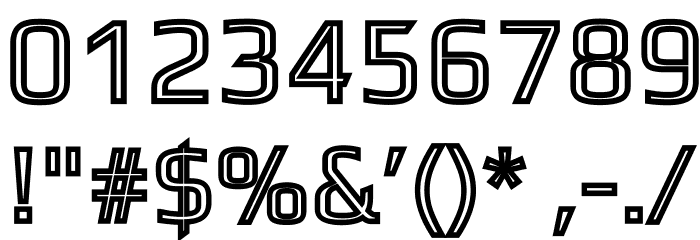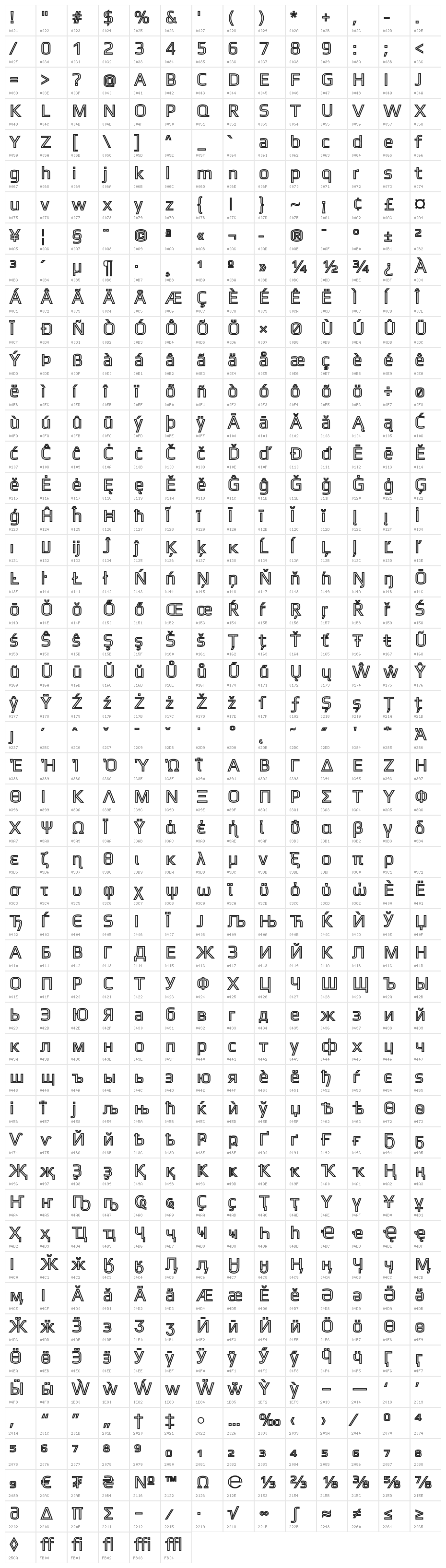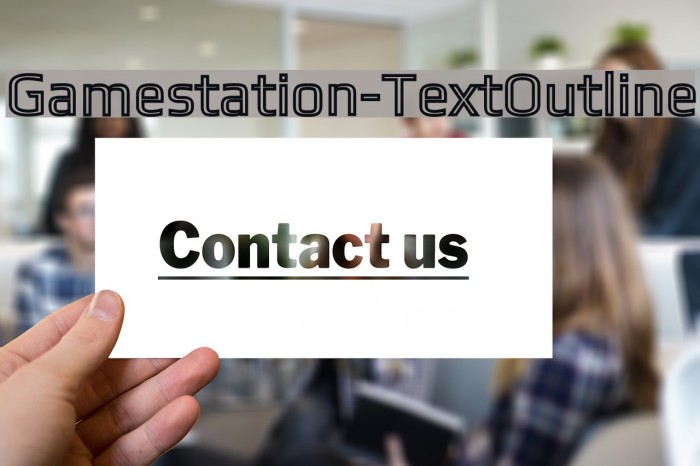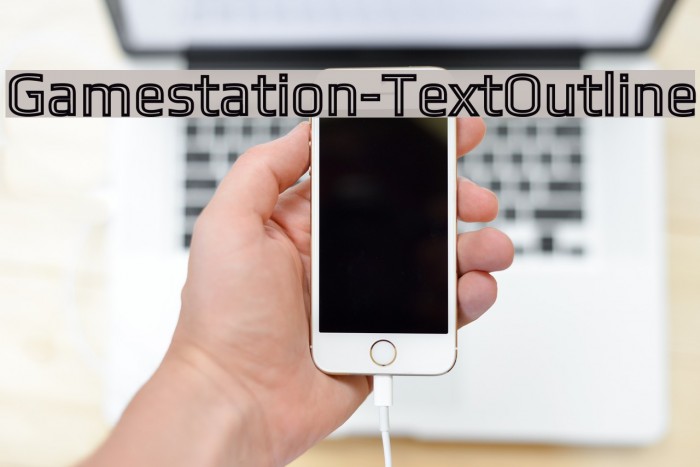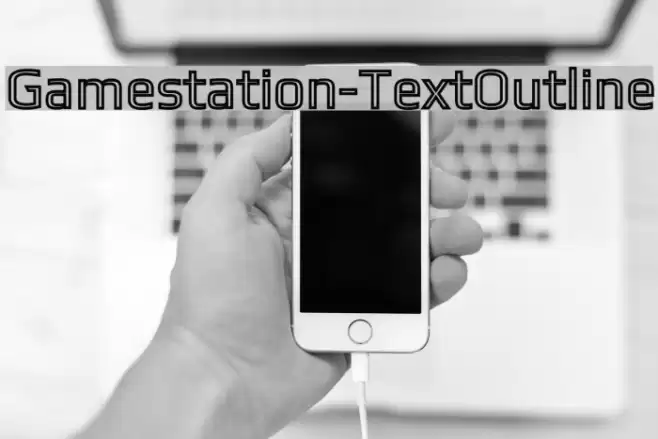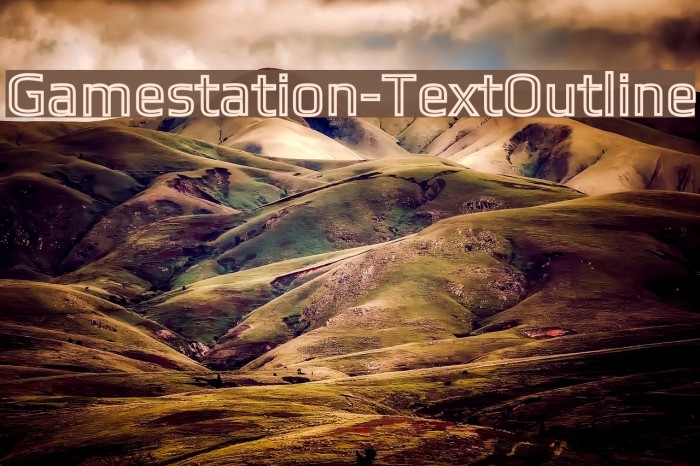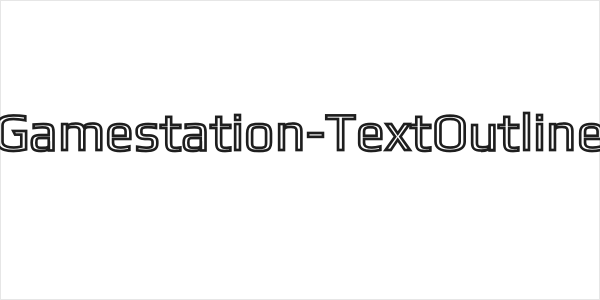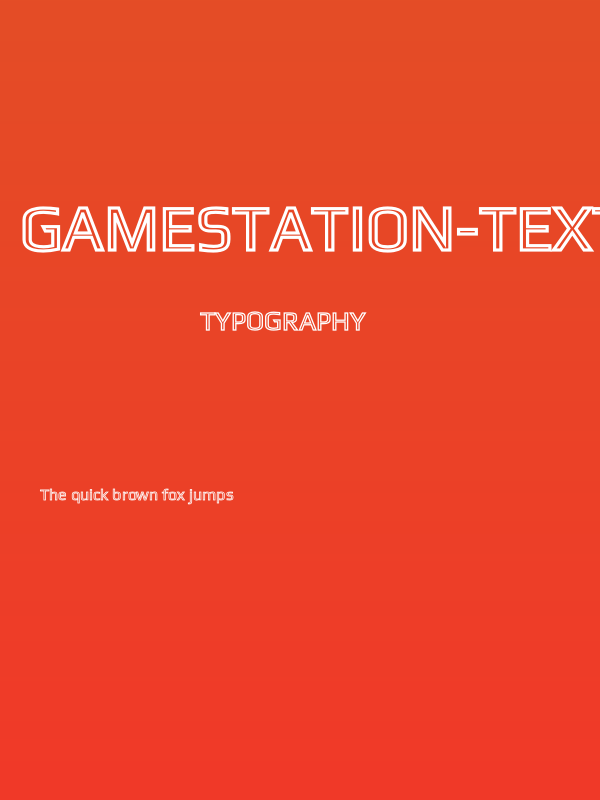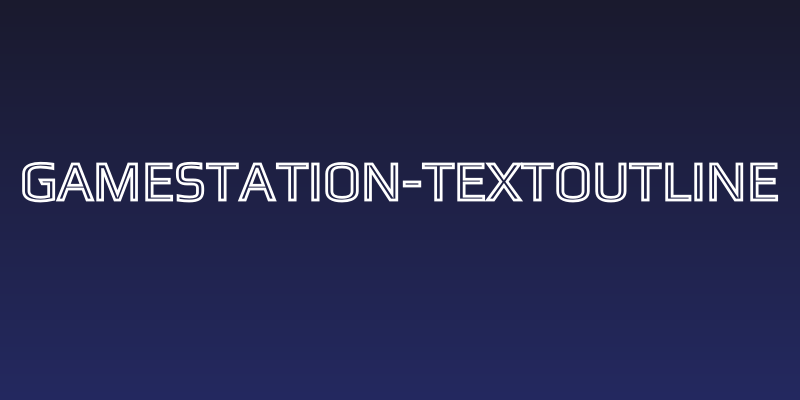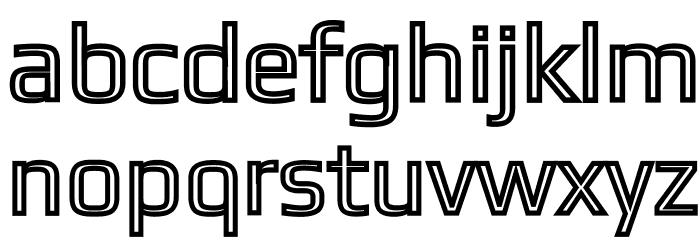
Gamestation-TextOutline Font
Gamestation-TextOutline Description
This font features a modern, outlined style with clean, geometric lines. The uppercase and lowercase letters maintain a consistent structure, with a focus on clarity and readability. The numerals and special characters are designed to complement the alphabet, offering a cohesive appearance across all characters. The outlined nature of the font gives it a unique, futuristic look, making it stand out in digital and print media. The spacing between characters is balanced, ensuring legibility while maintaining a stylish aesthetic.